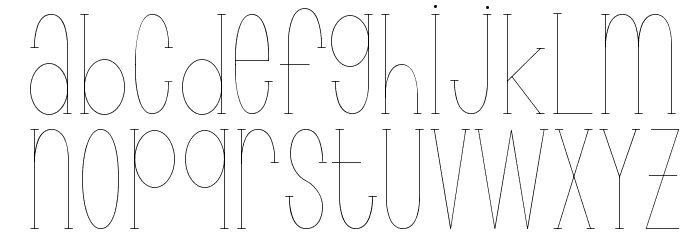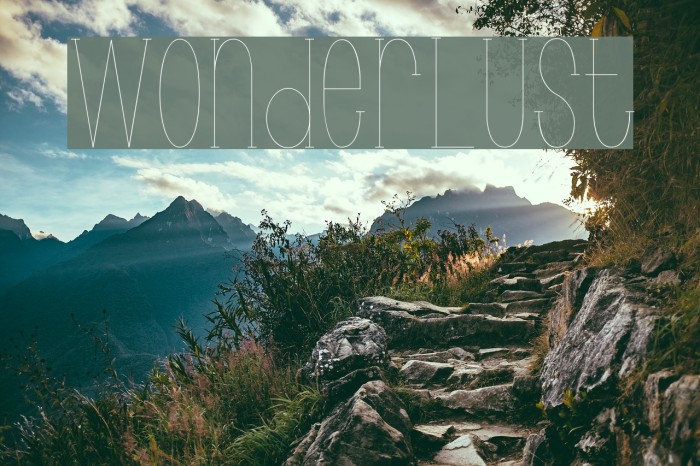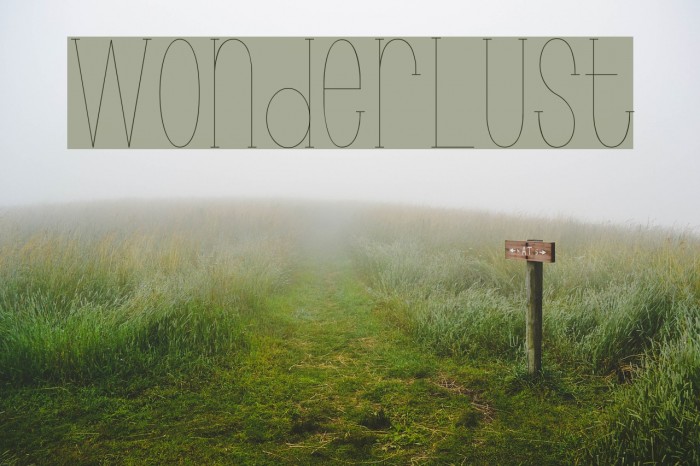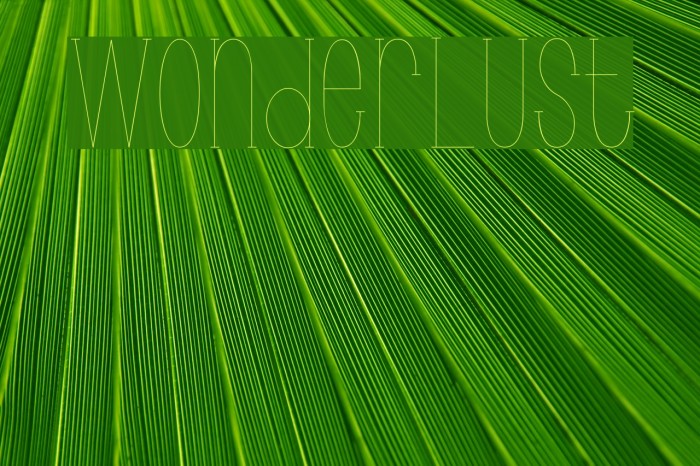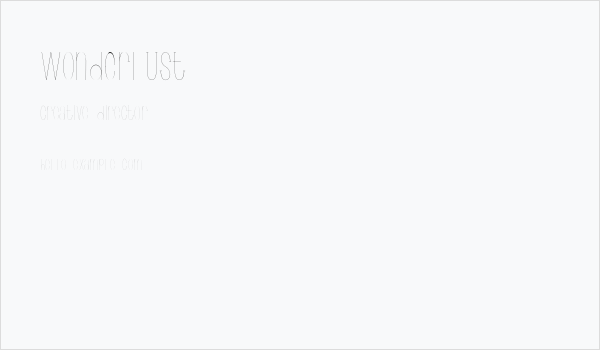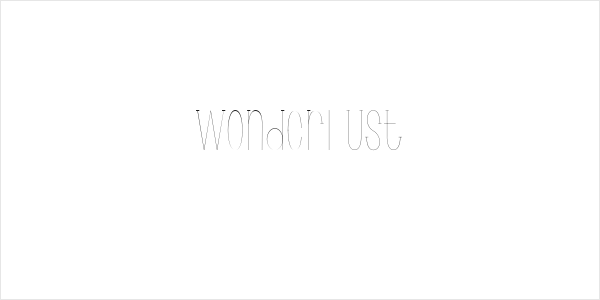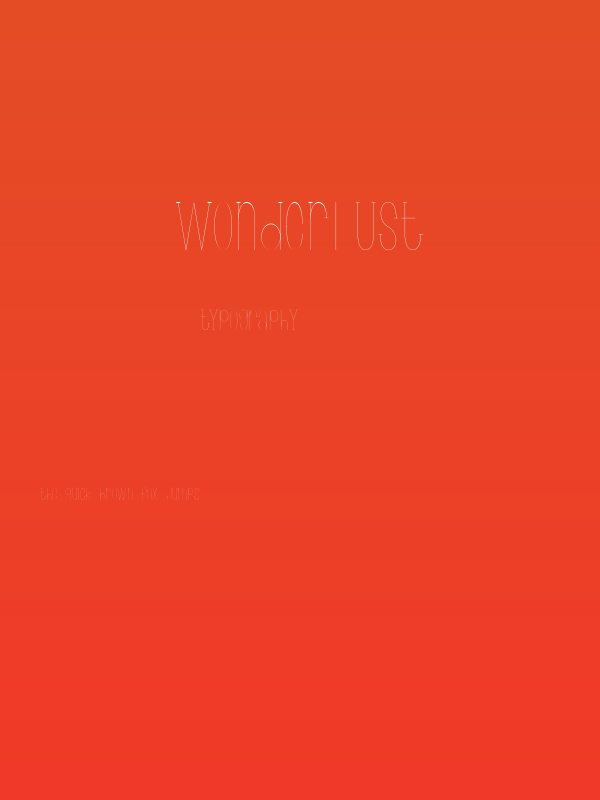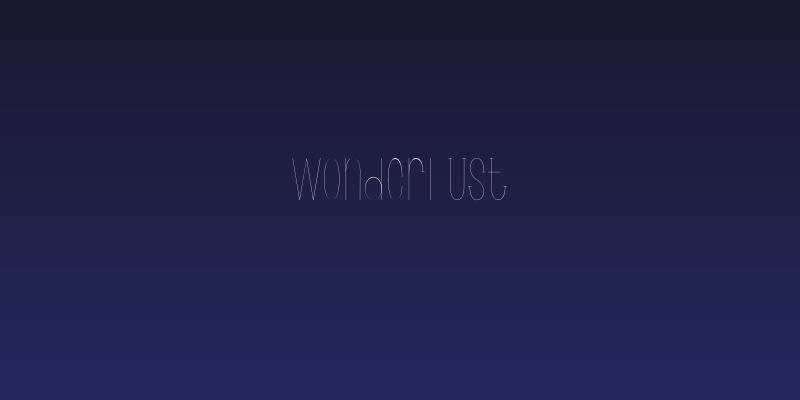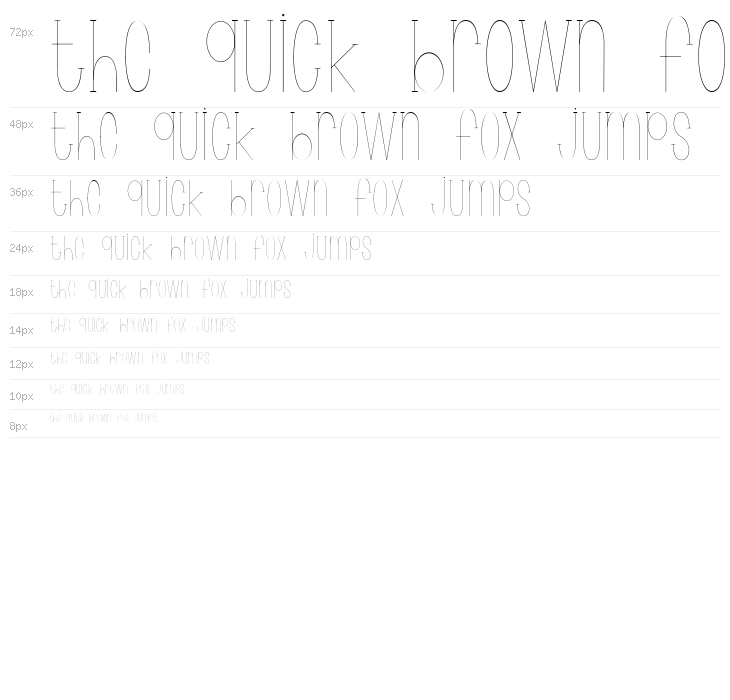
Wonderlust Font
Wonderlust Description
This font features a unique blend of modern elegance and minimalism, characterized by its tall, slender letterforms and subtle curves. The design is clean and airy, with a consistent stroke weight that gives it a refined and sophisticated appearance. The uppercase and lowercase letters maintain a harmonious balance, making it versatile for various design applications. The font's simplicity is enhanced by its generous spacing, allowing each character to stand out distinctly. Its understated style makes it suitable for projects that require a touch of elegance without overwhelming the viewer.
| Overall Style | Elegant and minimalist |
| Proposed Projects | Ideal for fashion magazines, luxury branding, wedding invitations, and minimalist design projects. |